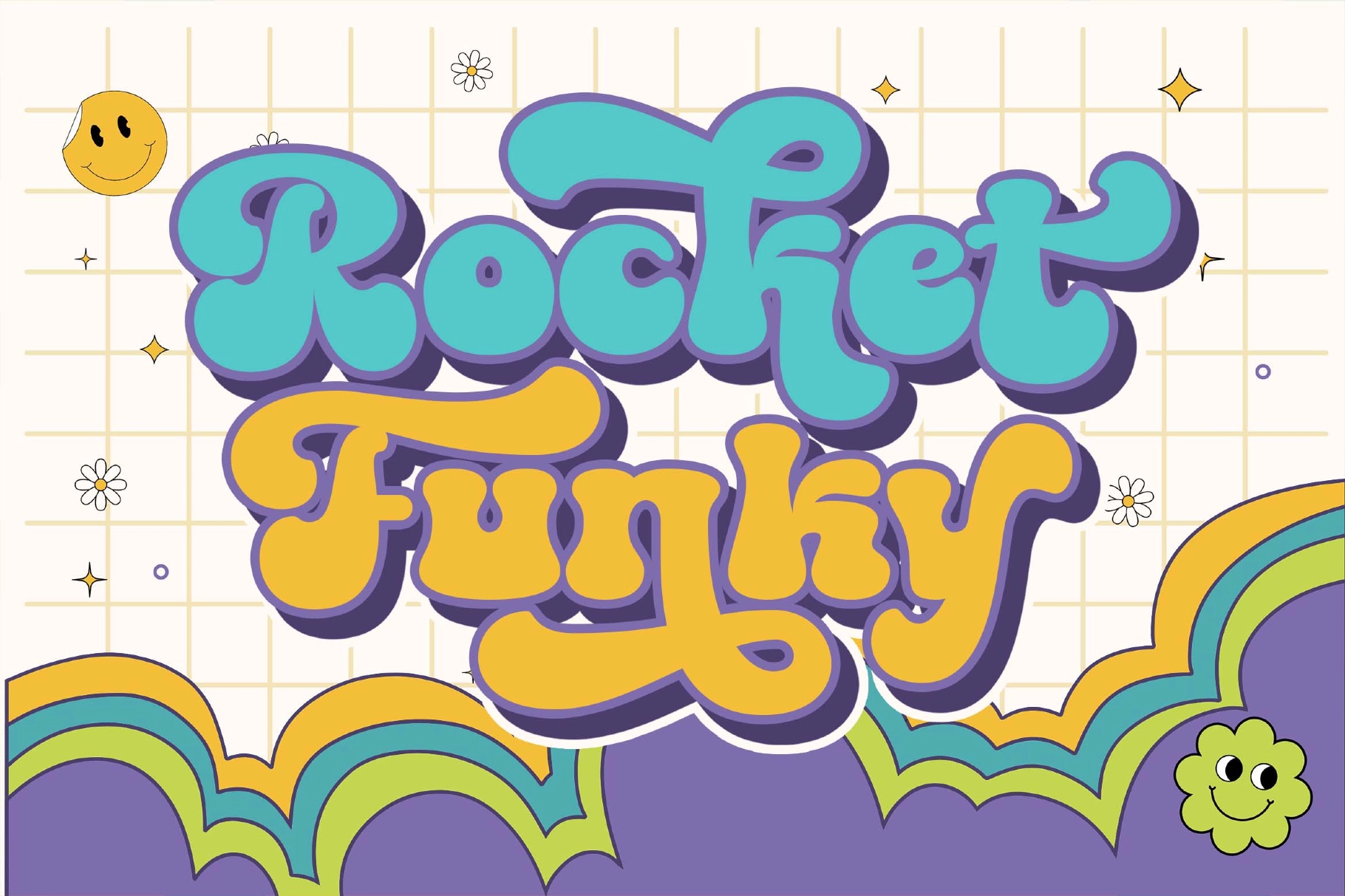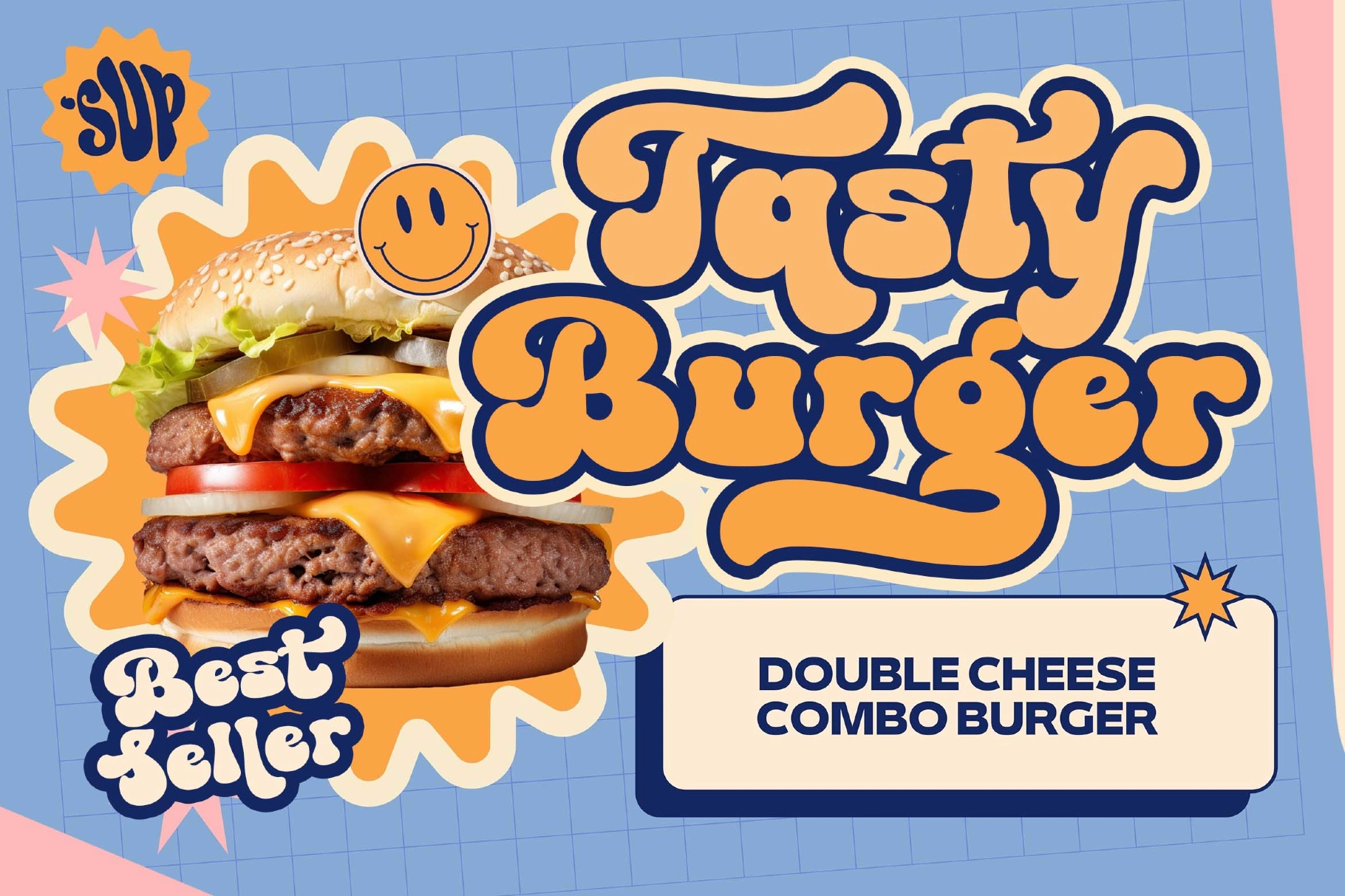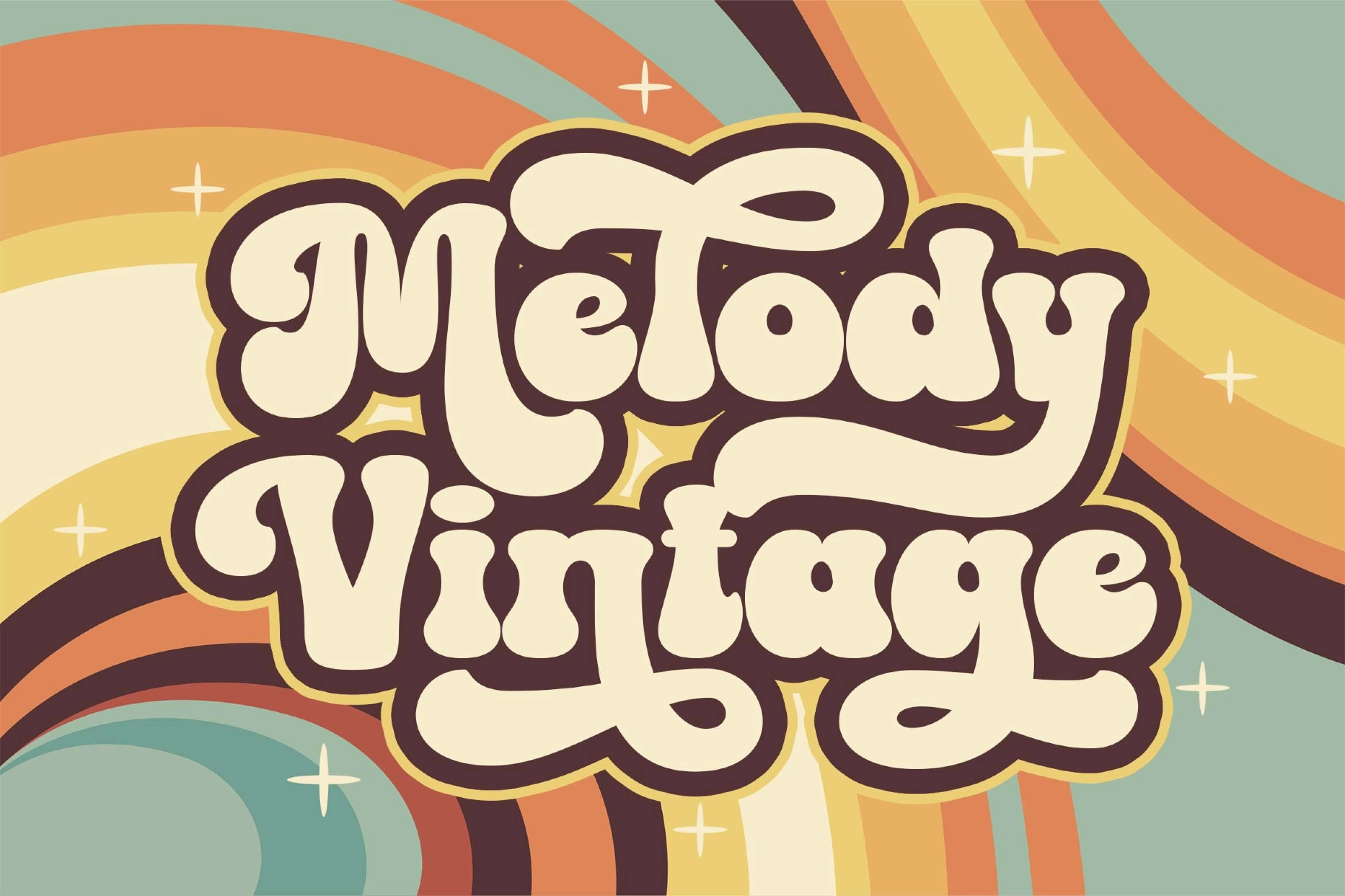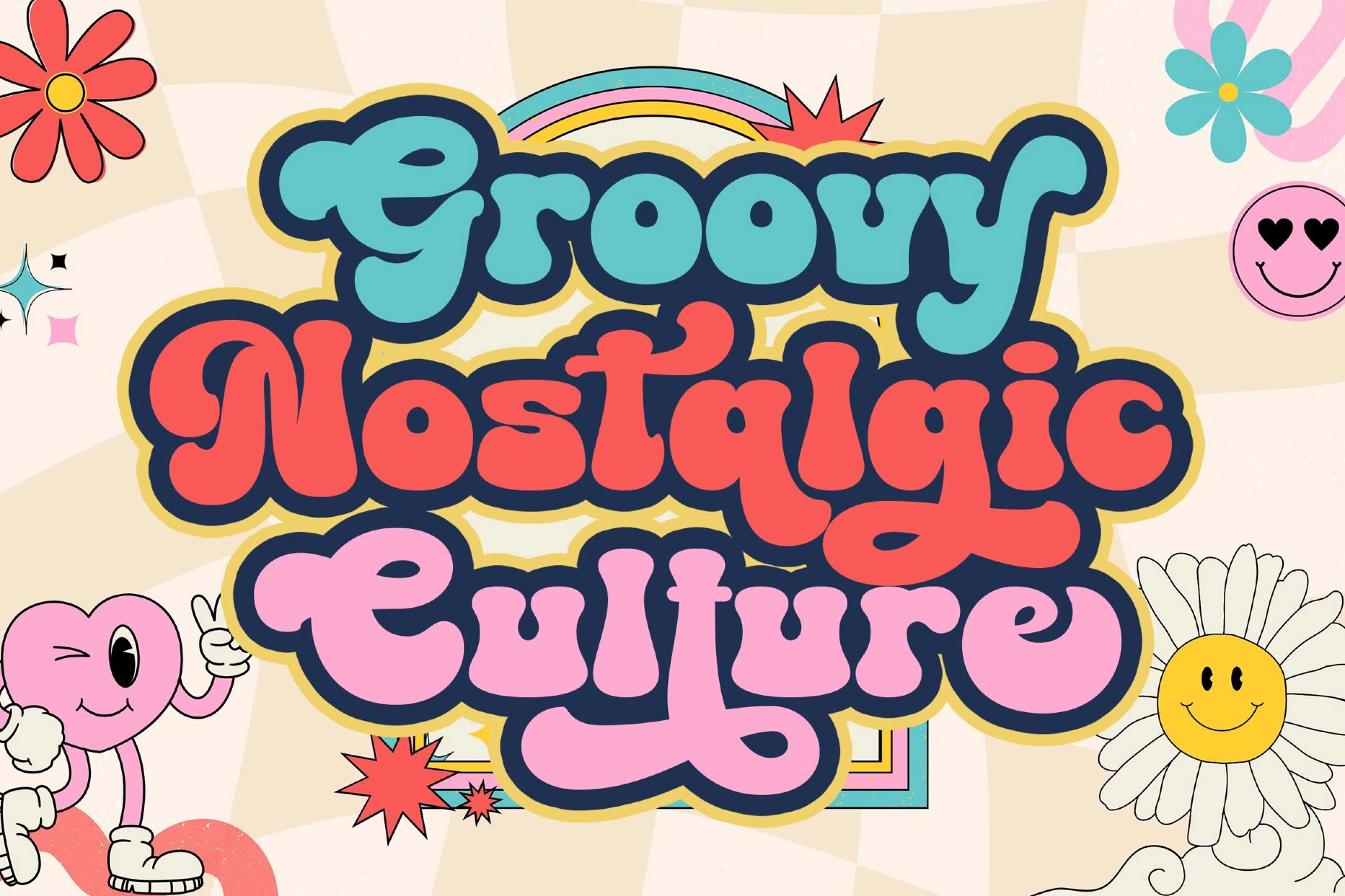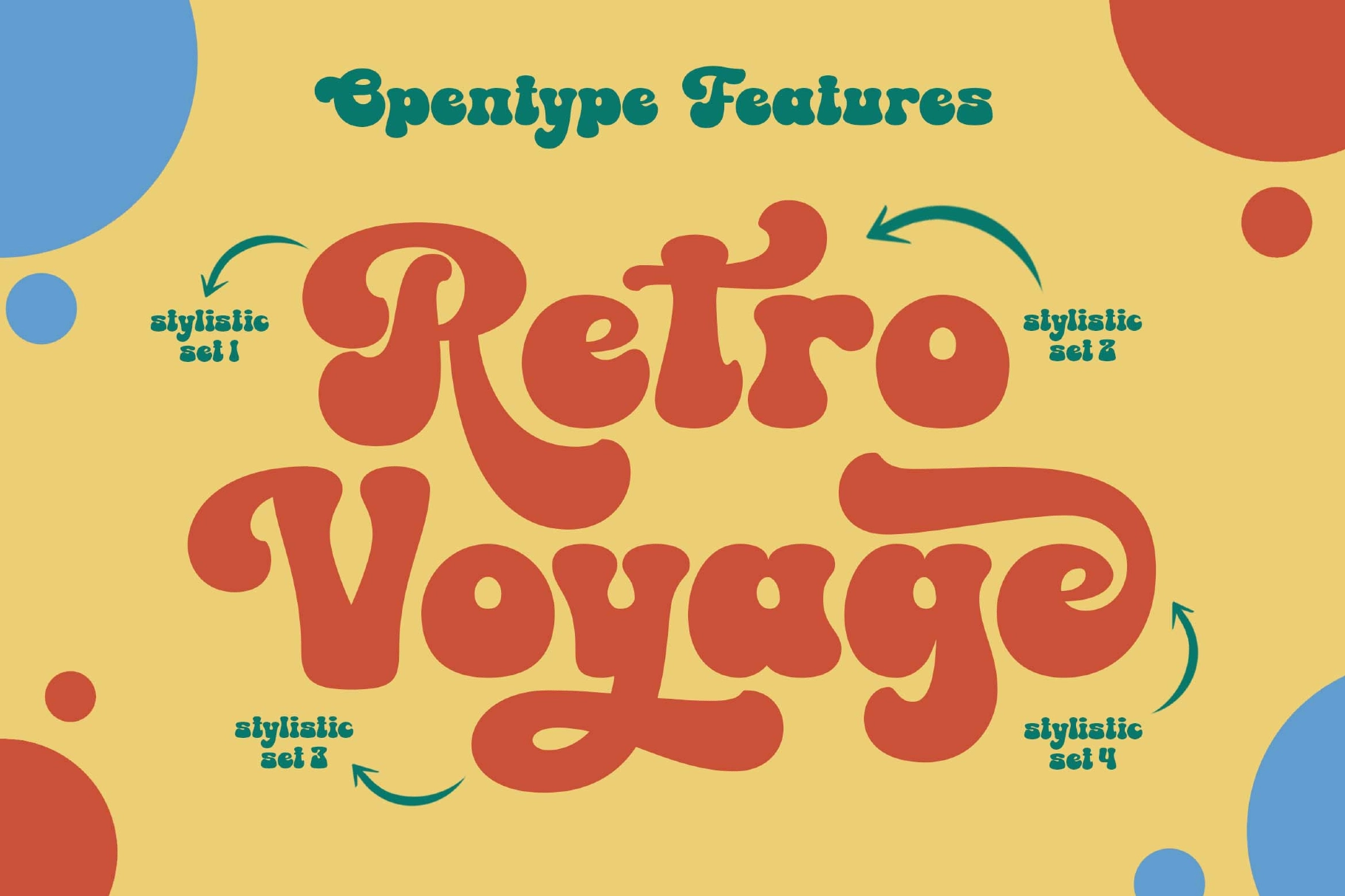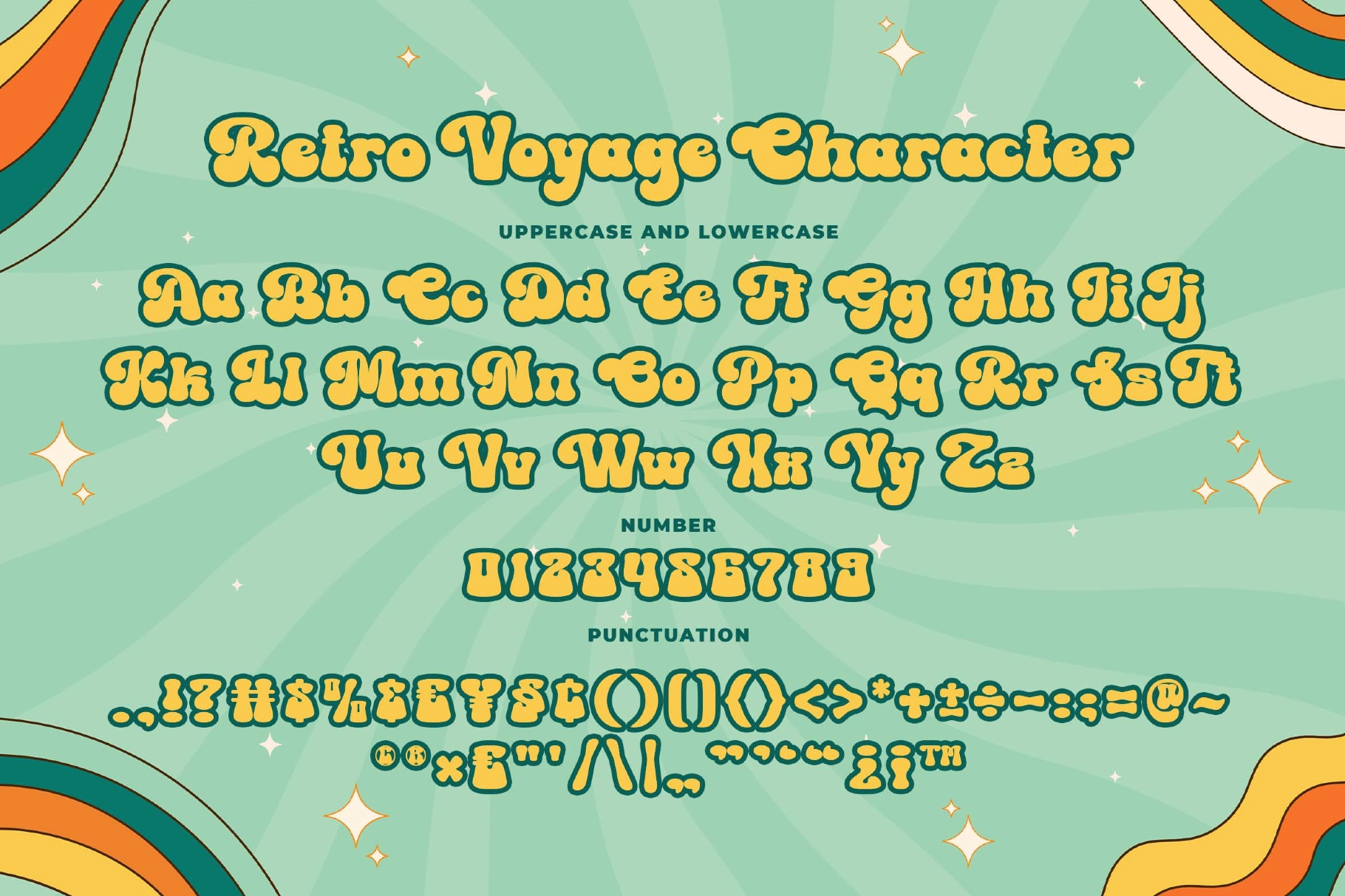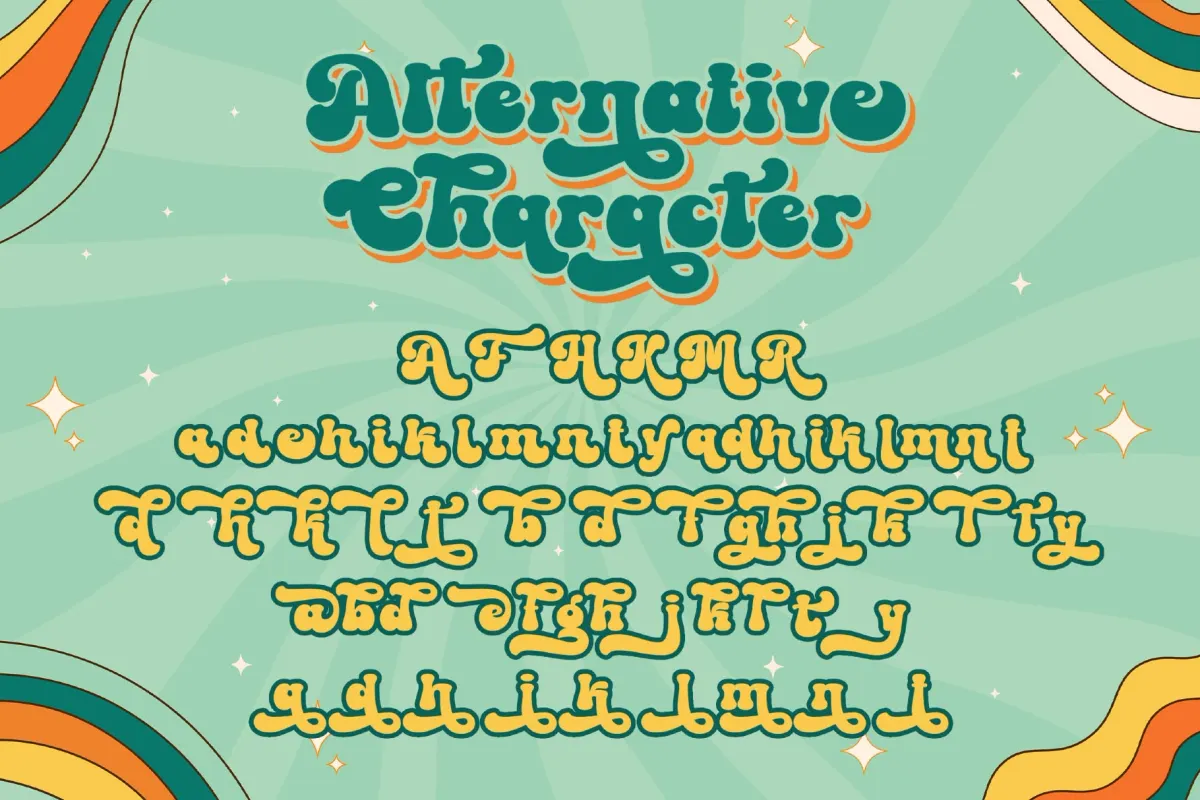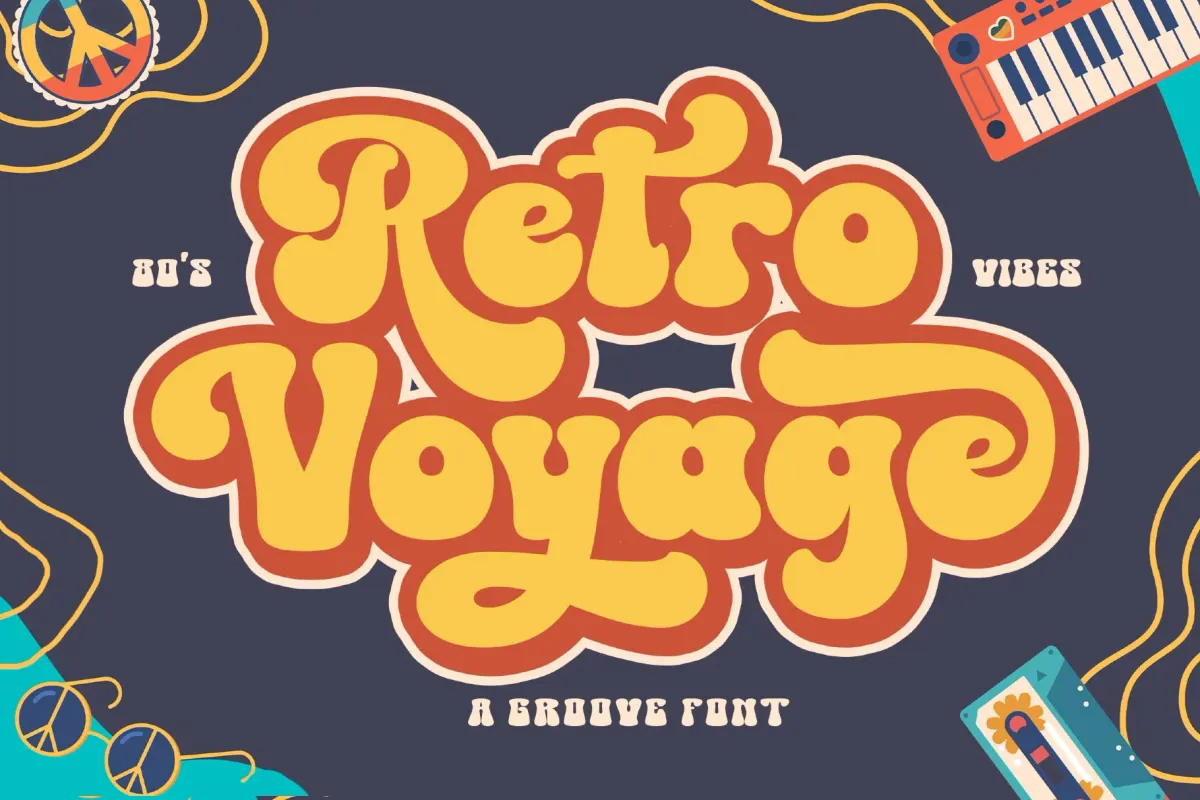
Retro Voyage a Groovy Font
Retro Voyage a Groovy Font that captures the unmistakable charm of the 70s and 80s. Inspired by iconic retro typography, this typeface blends soft curves with bold personality, bringing warm nostalgia and vintage flair into every design.
With its smooth, rounded serifs and confident letterforms, Retro Voyage delivers a timeless aesthetic that feels both playful and sophisticated. It’s perfect for logos, packaging, branding, advertisements, posters, and corporate projects that want to stand out with a classic retro vibe.
More than just a font, Retro Voyage is a visual time machine — a celebration of decades filled with color, creativity, and expressive design. Add instant vintage character to your work and let your typography travel back in style.
• Rounded retro serif style
• 70s–80s inspired design
• Bold, groovy character
• Uppercase & lowercase
• Numerals & punctuation